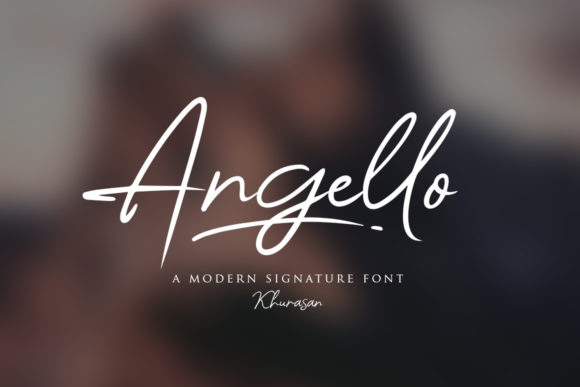
The Angello Font: Elevate Your Designs with Classic Elegance
I’ll never forget the time I was working on a wedding invitation project, and my client asked for a font that was both elegant and unique. I scoured the internet, tried out countless fonts, but nothing seemed quite right. That was until I stumbled upon the Angello font. Its classic typography with a twist instantly won me over, and I knew I had found the perfect fit. In this article, I’ll share my experience with the Angello font, its features, and how to make the most of it in your designs.
• ✨ Elegant and sophisticated design that’s perfect for high-end projects
• ✅ Highly versatile and can be used for a wide range of design projects, from branding to wedding designs
• 💡 Unique style that sets it apart from other fonts
• 📚 Extensive character set, including OpenType features and glyphs
While the Angello font is an excellent choice for many projects, there are a few things to keep in mind:
• ⚠️ Some users may find the font a bit too ornate for very casual or playful designs
• 🤔 Limited availability of certain characters or glyphs in certain software or platforms
The Designer Inspiration Behind Angello
The Angello font was inspired by classic typography and a desire to create a unique and elegant font that would elevate design projects to the highest level. The designer behind Angello drew inspiration from traditional printing techniques and combined them with modern digital design principles to create a font that’s both timeless and contemporary.
Q: What is the Angello font best suited for?
A: The Angello font is highly versatile and can be used for a wide range of design projects, including branding, headings, wedding designs, invitations, signatures, logos, labels, and more!